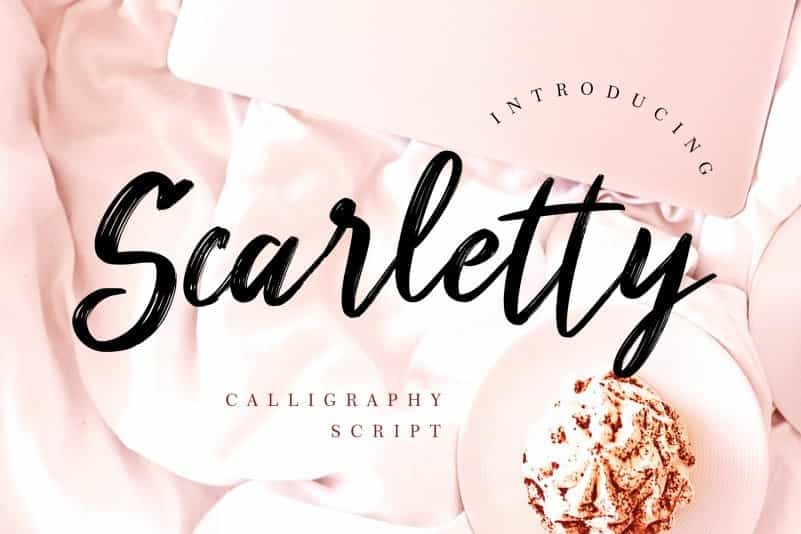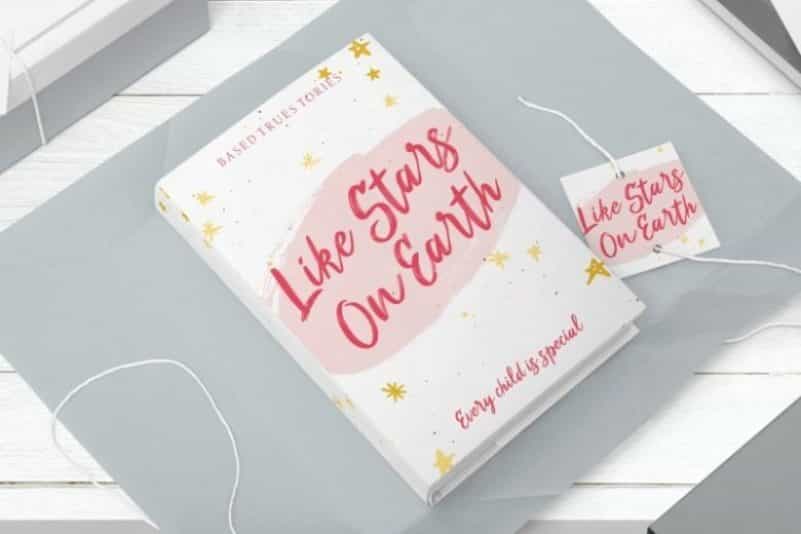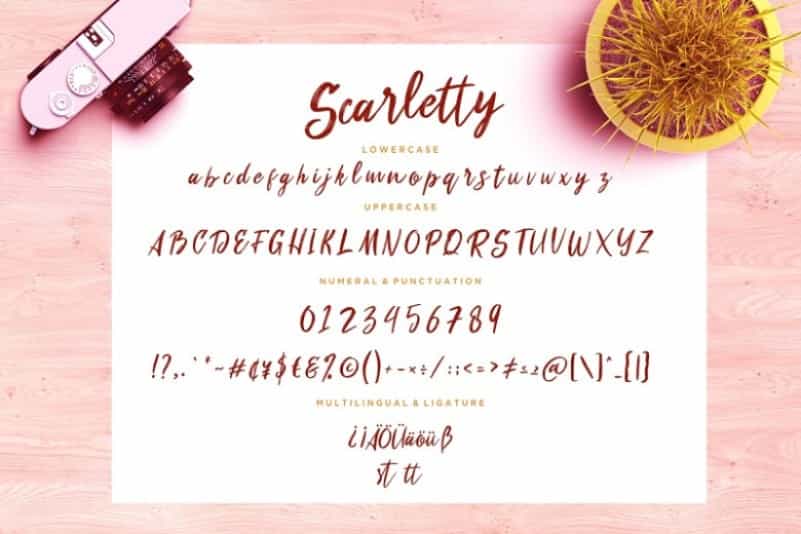
Scarletty is a calligraphy font typed by handwriting, it has natural operations. It will guarantee an attractive output. It contains all the varieties of lower and capital cases, multi-lingual and currency figures, numerals, punctuation, and swashes. Now! Extra scarletty brush script.